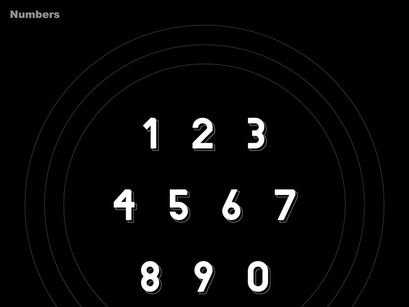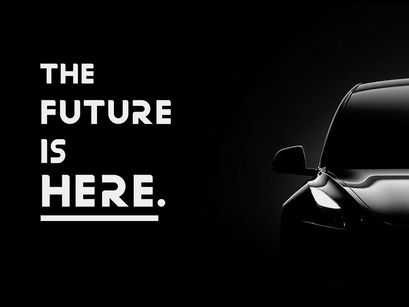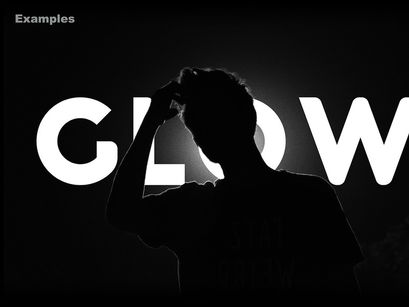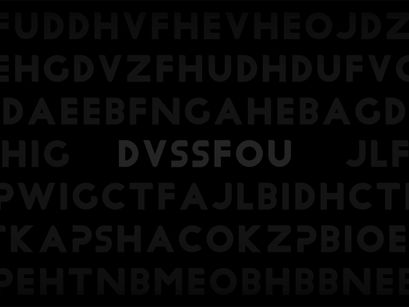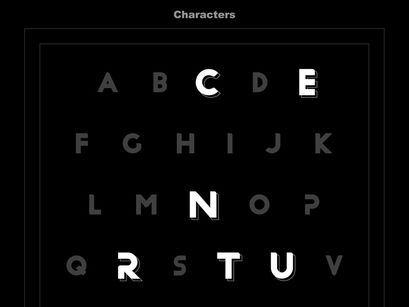
CURRENT — Free Typeface
Current-Regular
CURRENT by Matt Pendrill (https://www.behance.net/MattPendrill) is a big, bold, and beautiful sans-serif font designed and developed by Matt Pendrill. With its clean lines, round corners, and striking presence, it evokes a sense of power and strength not often found in typefaces of its ilk. For this reason, it works great as a headline on billboards, posters, and web pages. Most importantly, it's FREE for both personal and commercial use!